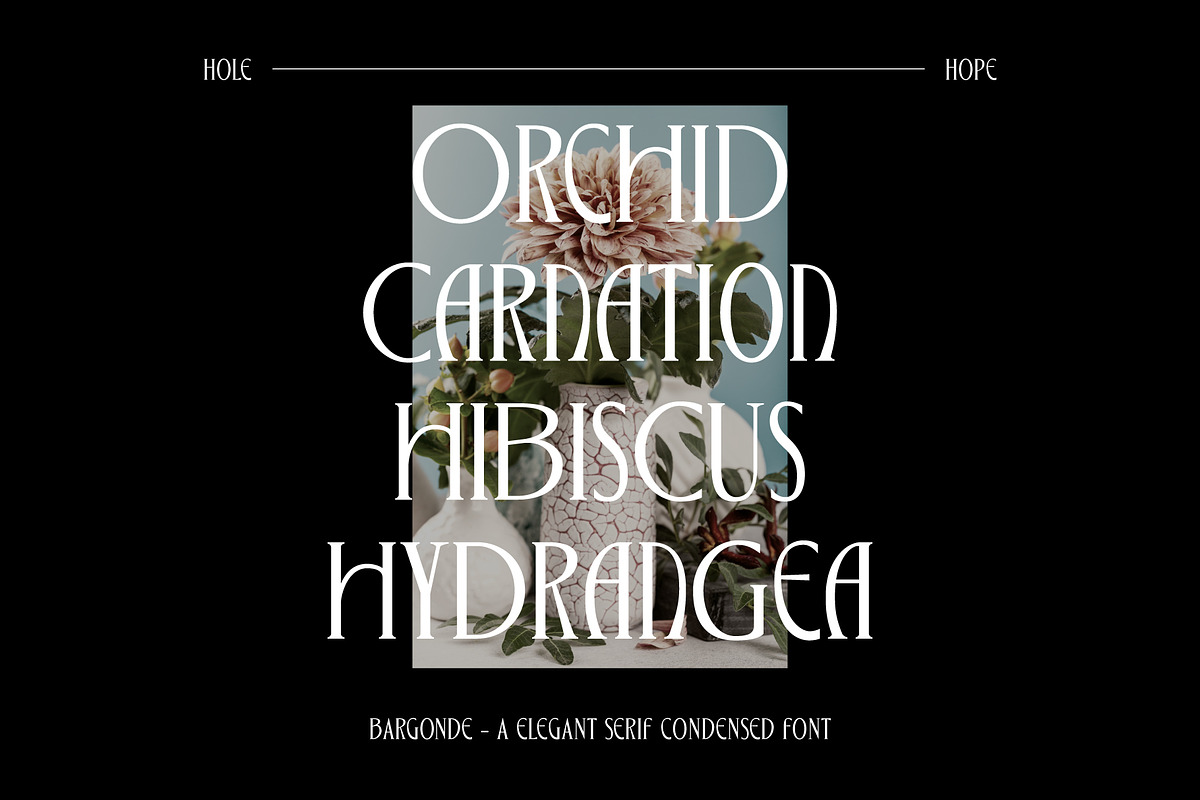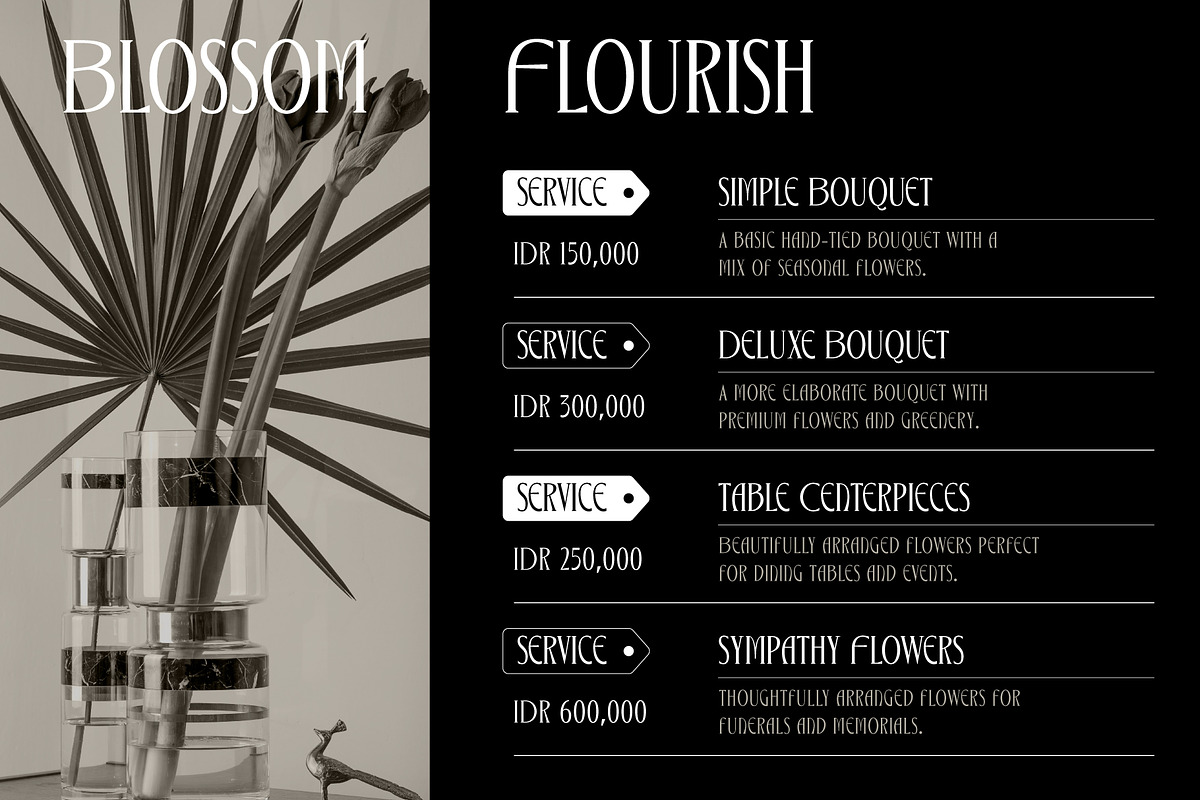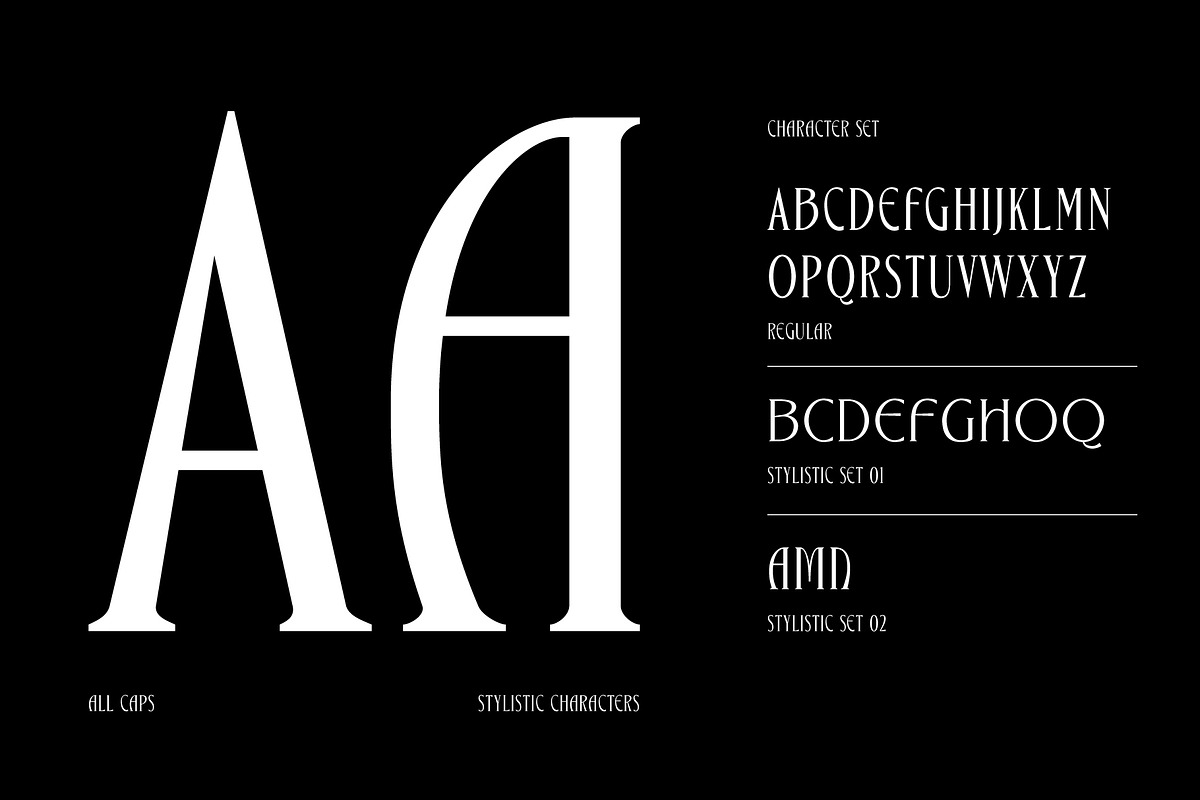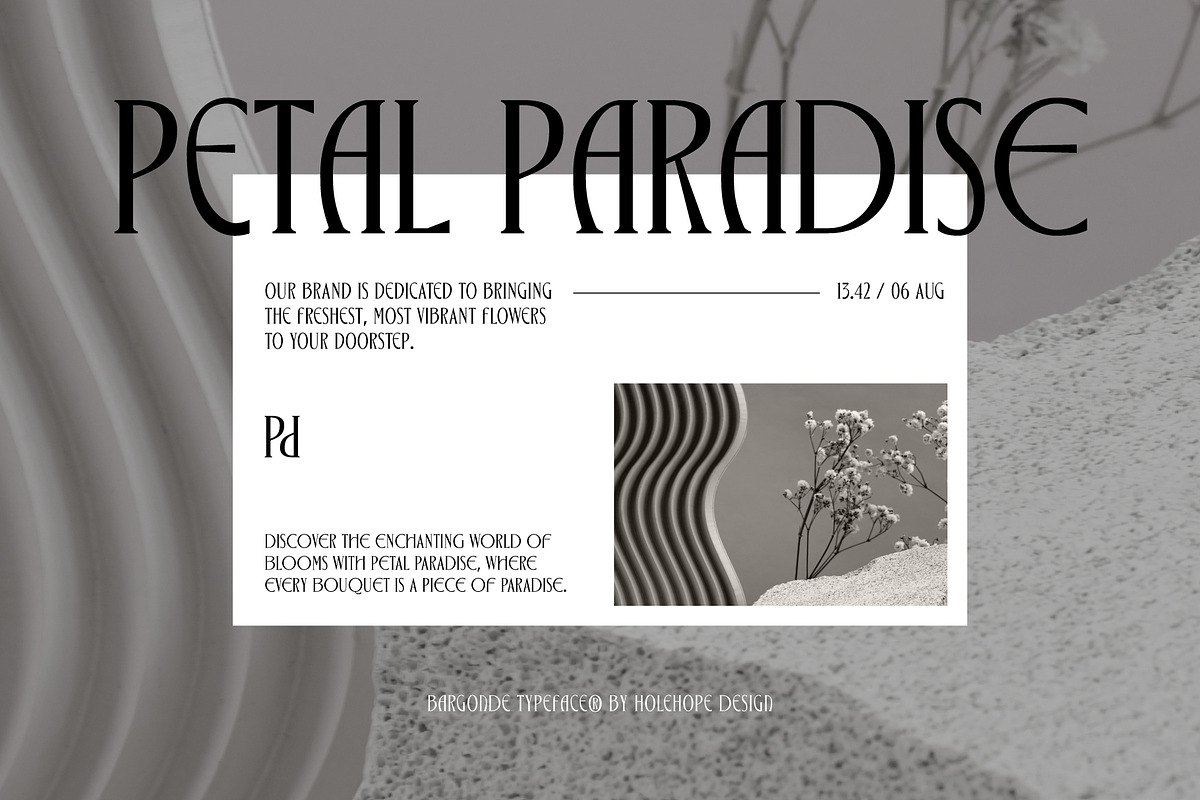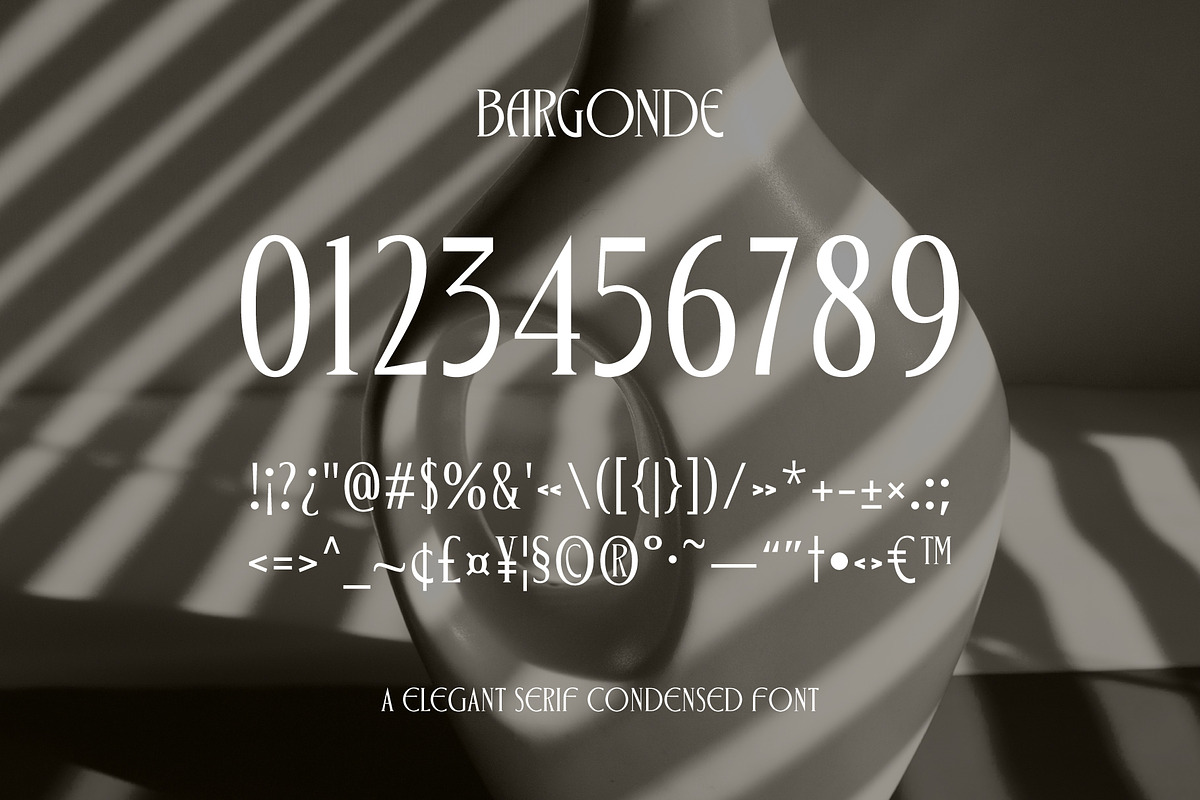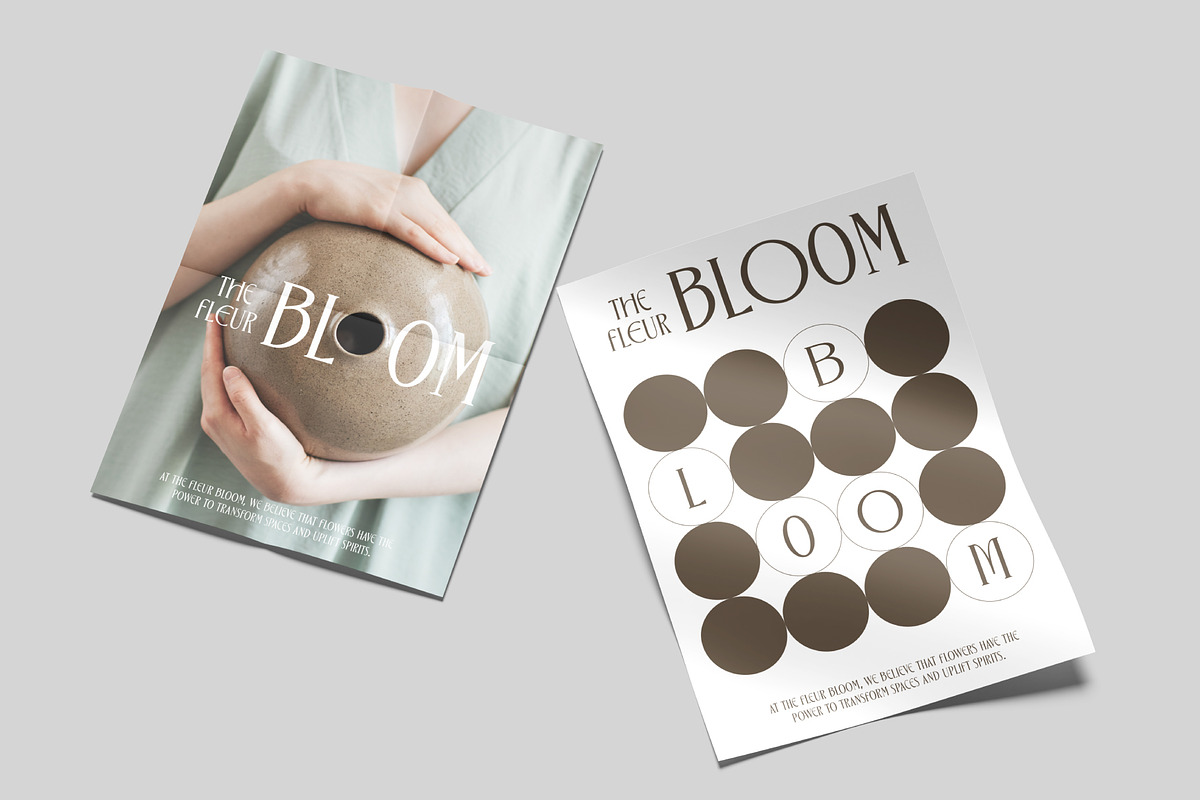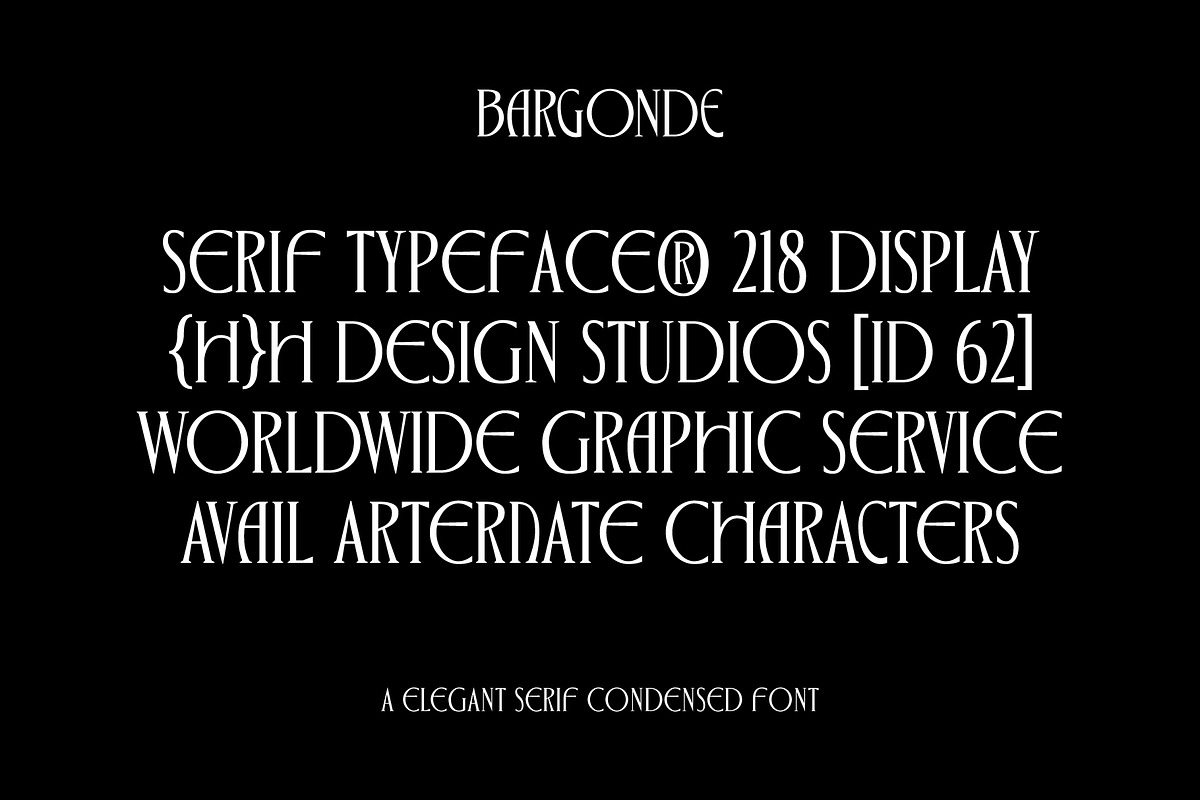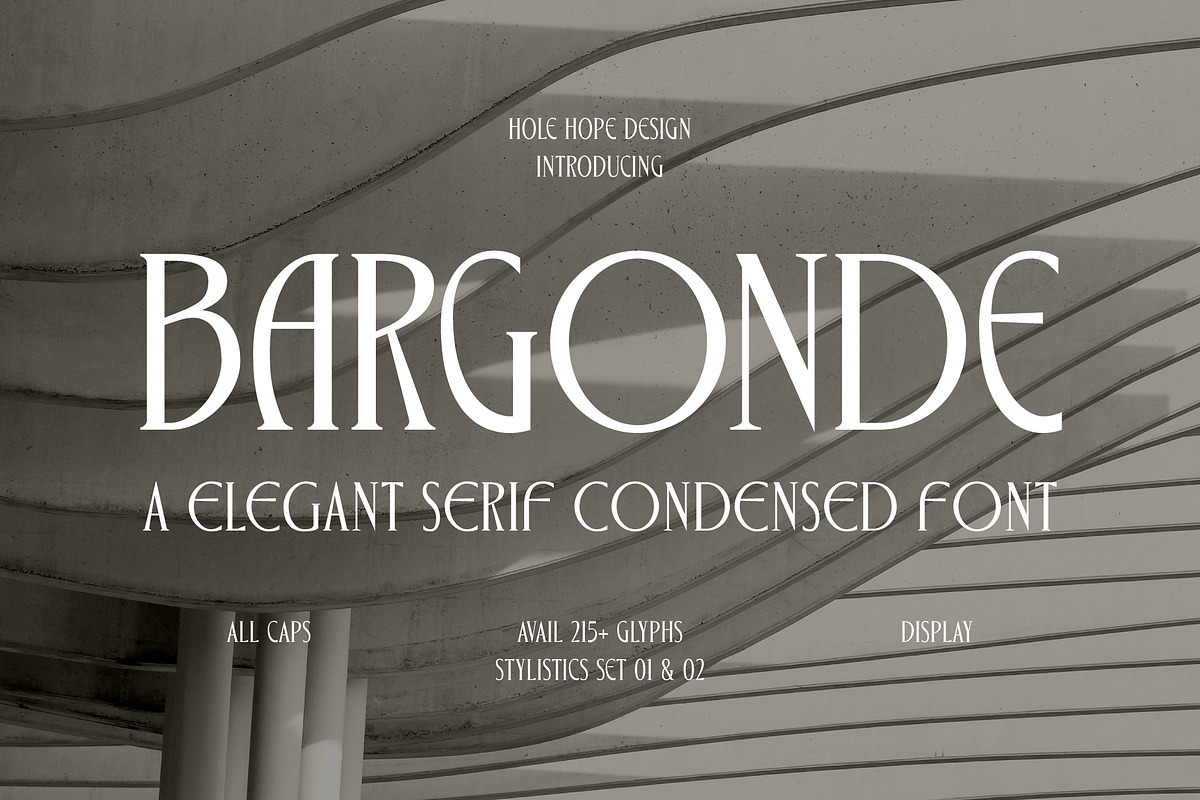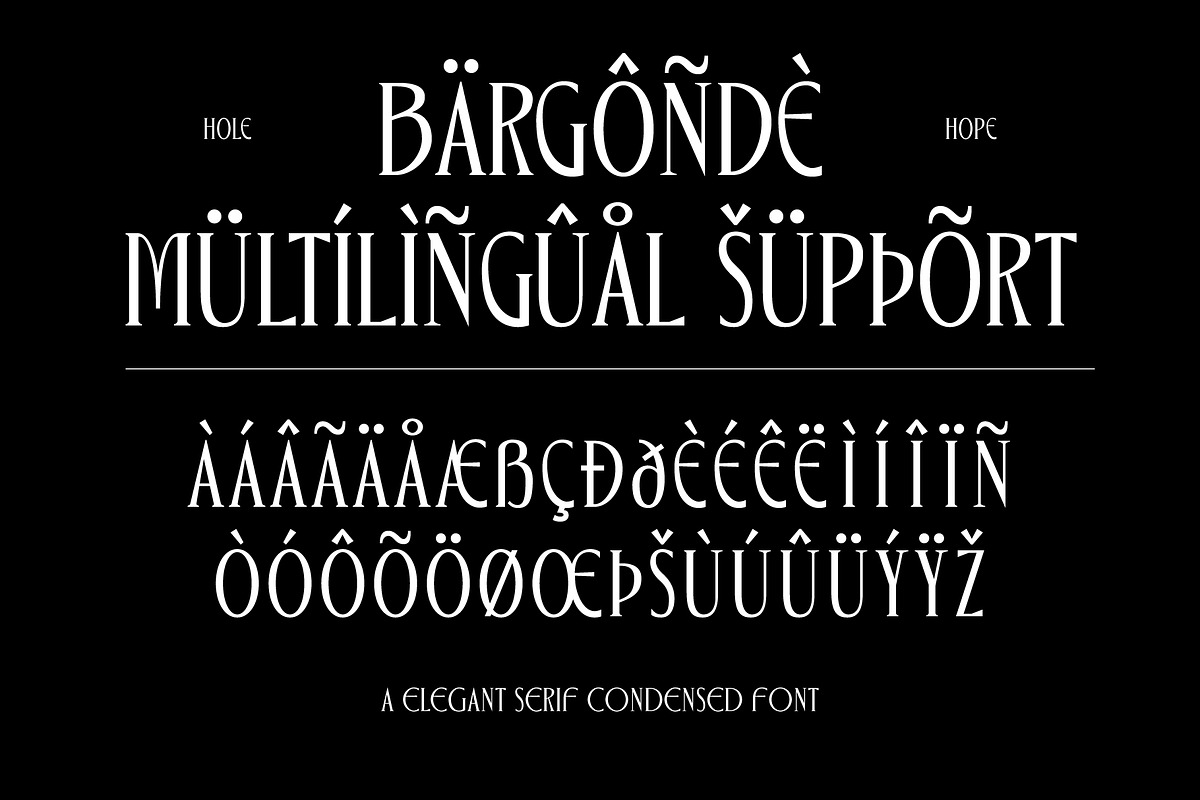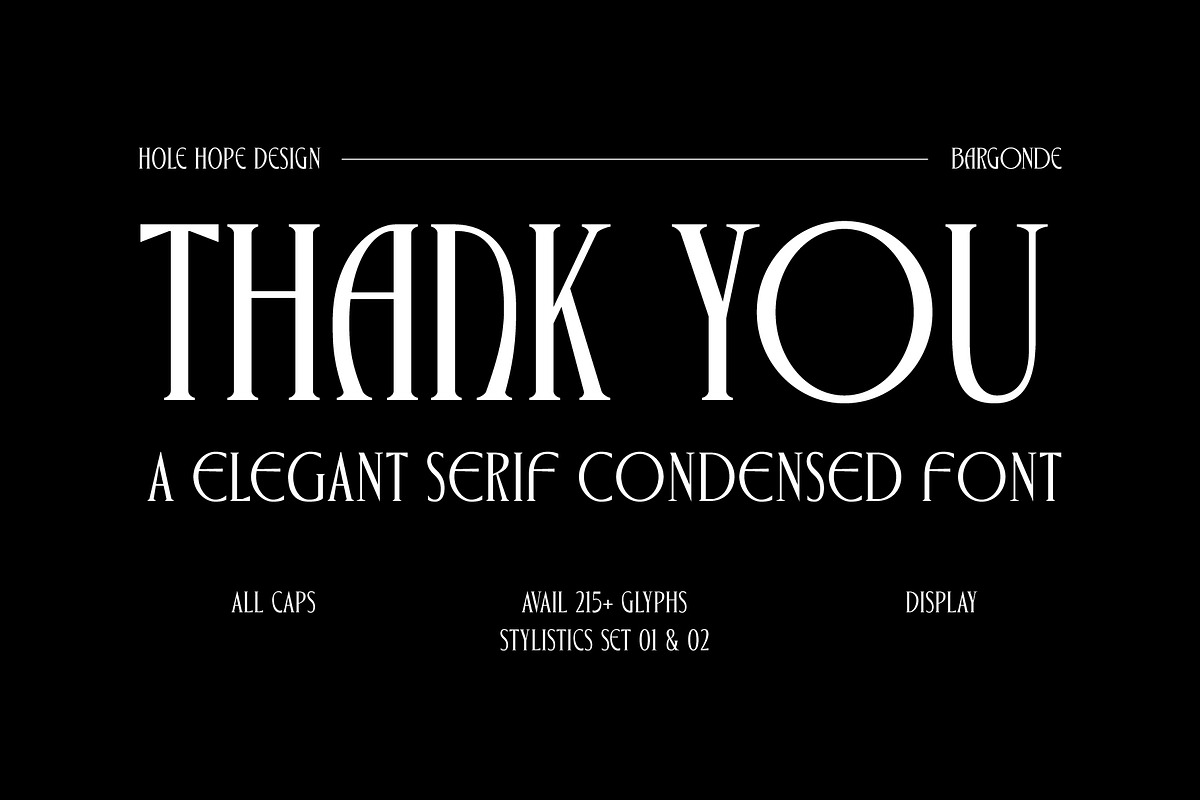
Bargonde | Elegant Serif Condensed
Bargonde | Elegant Serif Condensed Font
Bargonde is an elegant serif condensed font that seamlessly blends vintage aesthetics with minimalist sophistication. Part of the distinguished Vintage Minimalism collection, Bargonde exudes an air of refinement and grace. Its slender, condensed form is meticulously crafted to deliver both readability and style, making it a versatile choice for a wide range of design projects. Whether you’re designing a luxurious wedding invitation, an upscale branding project, or a classic editorial layout, Bargonde brings a touch of elegance and a nod to the past, while remaining firmly contemporary. Elevate your designs with the distinguished allure of Bargonde.
- Character Set (All Caps)
- Stylistics Set 01 & 02